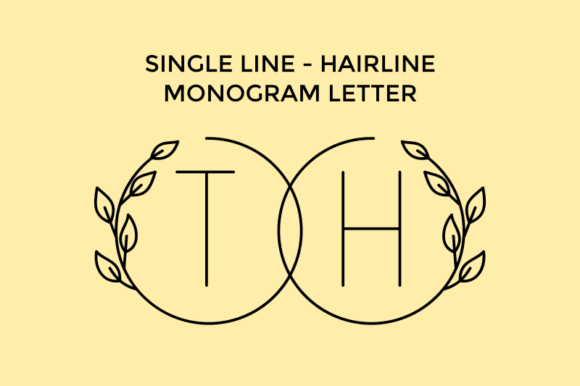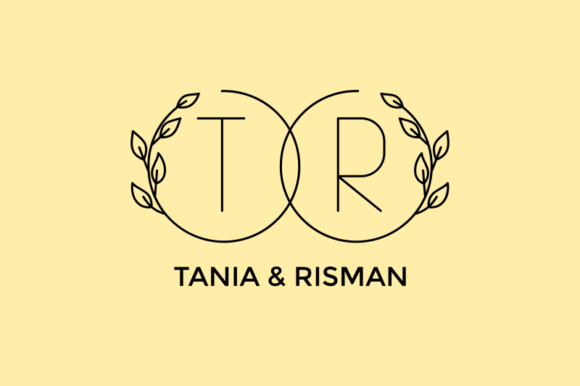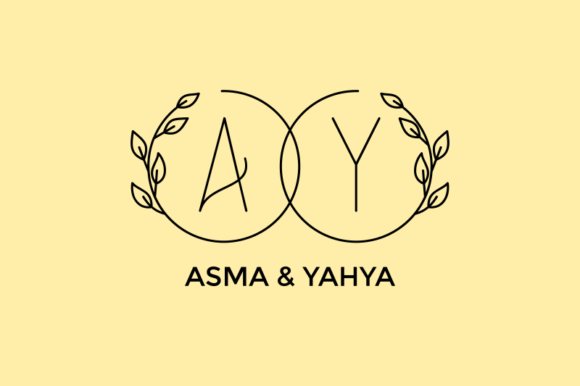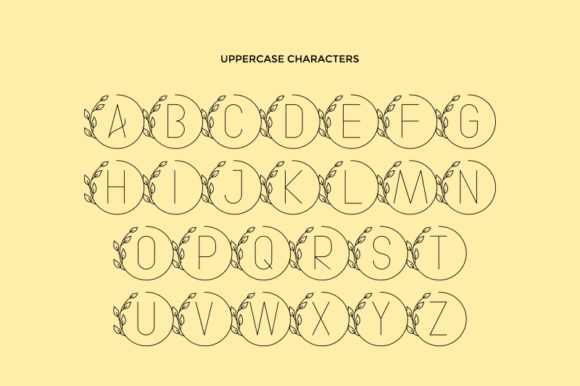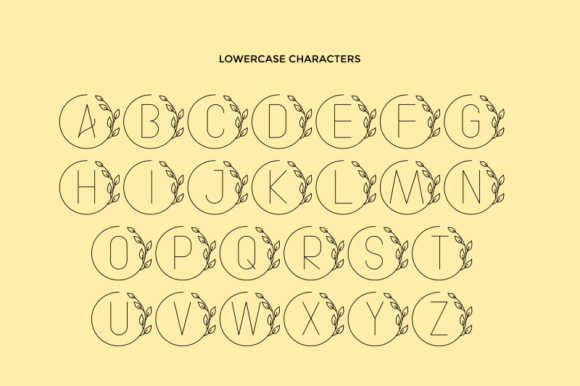
Discover the Timeless Charm of Circle Line Font
As designers, we’ve all had those moments when the perfect font strikes and our creative vision comes alive. For me, it was the first time I laid eyes on the Circle Line Font – its sleek, modern lines and elegant curves transported me to a world of endless possibilities.
Designed to add a touch of sophistication to any design, the Circle Line Font is a versatile and unique decorative font that’s perfect for logos, quotes, invitations, business cards, and presentations. Its versatility makes it a valuable asset for designers, allowing them to create gorgeous and timeless designs with ease. Whether you’re a seasoned pro or just starting out, the Circle Line Font is sure to become your go-to choice for adding a touch of class to your projects.
Circle Line Font Key Features
- Unique Characteristic: Circle Line Font features a distinctive, hand-drawn design with smooth, rounded lines and subtle texture, giving it a friendly and approachable feel.
Circle Line Font Review
At first glance, the Circle Line Font has a sleek and modern design that catches the eye ✨. The rounded edges and clean lines make it perfect for creating a sophisticated and elegant look. The font is also highly customizable, allowing users to adjust the size, color, and spacing to suit their needs.
- The Circle Line Font is highly legible, even at smaller sizes ✨.
- It’s great for creating a cohesive brand identity, with its consistent design elements ✨.
- The font is available in a range of weights, from light to bold, making it versatile for different applications ✨.
However, there are some limitations to consider ⚠️. The font can feel a bit generic, lacking the unique personality of some other fonts. Additionally, it may not be the best choice for creating a bold or playful look, as its rounded edges can make it feel too soft.
Overall, the Circle Line Font is a solid choice for anyone looking for a clean and modern design. While it may not be the most exciting font, it’s reliable and easy to work with. With a little creativity, it can be used to create some truly beautiful designs.
Tips for Getting the Most Out of Circle Line Font
Use Circle Line Font to create visually appealing titles and headings.
Pair Circle Line Font with other fonts to create a unique and interesting typography.
Experiment with different font sizes and colors to create a distinctive look.
Circle Line Font is suitable for:
Designing logos and branding materials.
Creating eye-catching titles and headings.
Adding a touch of elegance to presentations and documents.
Alternatives to Circle Line Font
Open Sans is a clean and modern sans-serif font that works well for digital products and websites. It’s highly legible and versatile, making it suitable for a wide range of applications. Compared to Circle Line Font, Open Sans has a more minimalist and neutral aesthetic, which can be beneficial for creating a clean and professional look.
Montserrat is a geometric sans-serif font that originated in Buenos Aires. It’s designed to be highly legible in small sizes, making it ideal for digital displays and mobile devices. Compared to Circle Line Font, Montserrat has a more modern and urban feel, which can be beneficial for creating a trendy and edgy look.